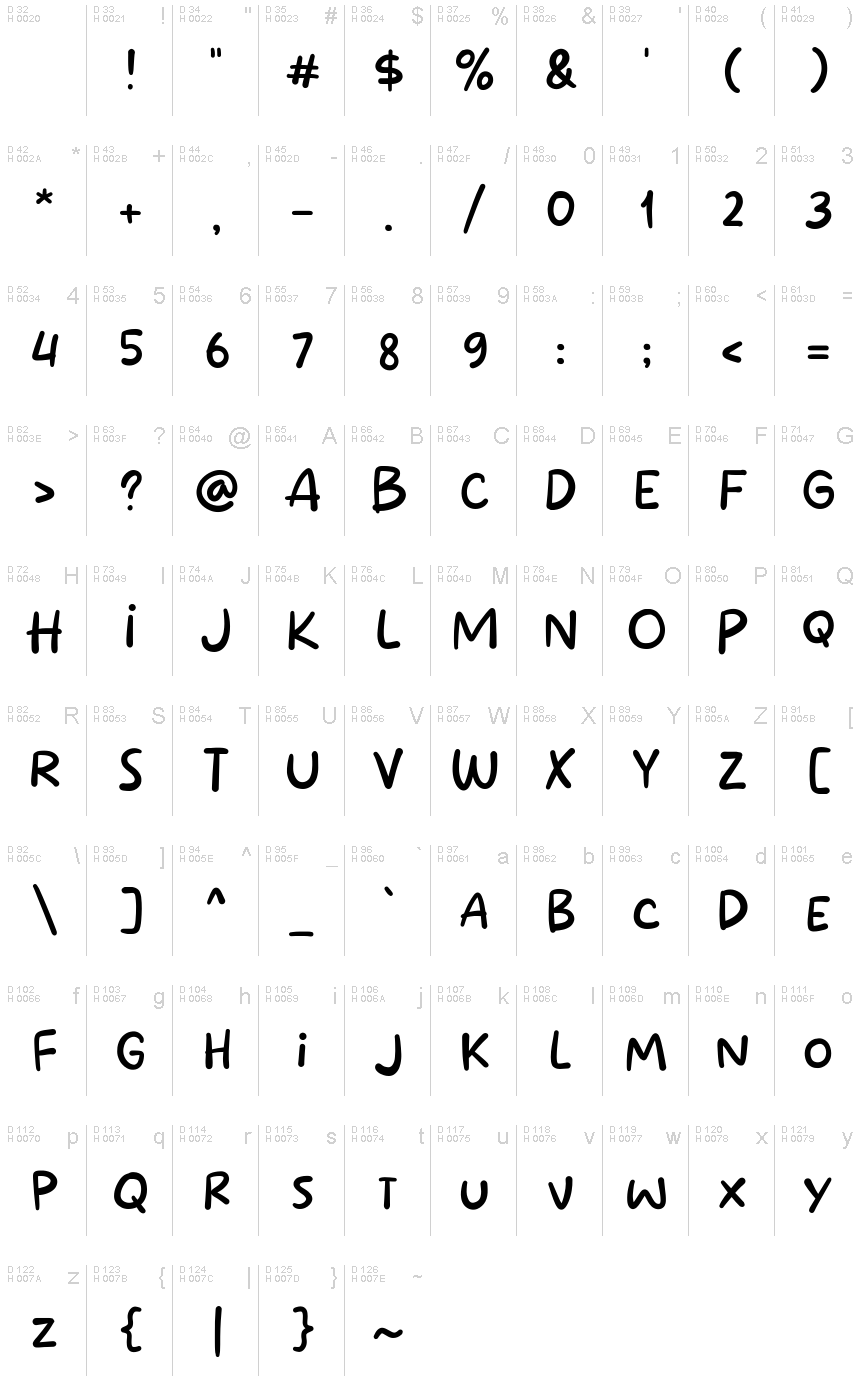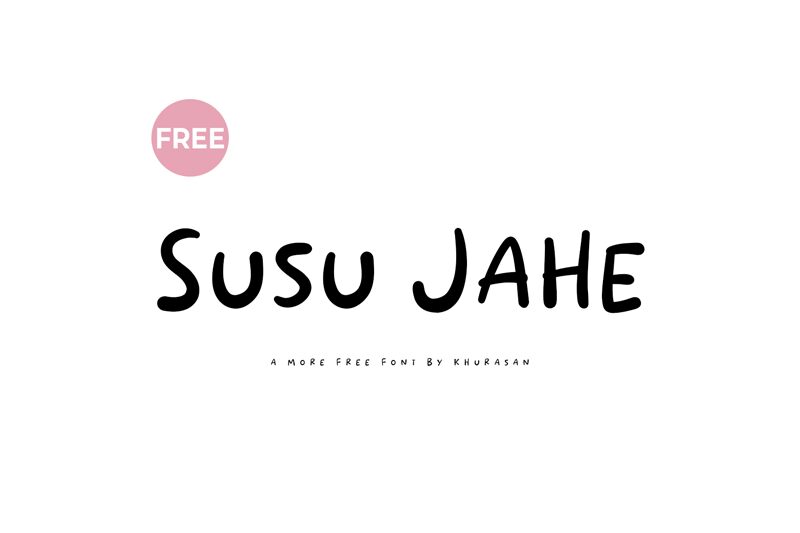
Susu Jahe
The Susu Jahe font by Khurasan exudes a captivating charm, blending organic strokes with a touch of whimsy. Its fluid, handwritten aesthetic evokes a sense of warmth and authenticity, making it a visually compelling choice for a wide range of design projects. The font's distinctive characters showcase a harmonious balance between elegance and playfulness, creating a versatile and engaging typographic experience.
This font's versatility extends across numerous design applications, from branding and packaging to editorial layouts and digital interfaces. Its expressive and adaptable nature lends itself beautifully to crafting eye-catching headlines, impactful logotypes, and personalized content that resonates with audiences. Whether you're seeking to add a touch of personality to your designs or convey a sense of artisanal craftsmanship, the Susu Jahe font by Khurasan is a versatile and compelling choice.